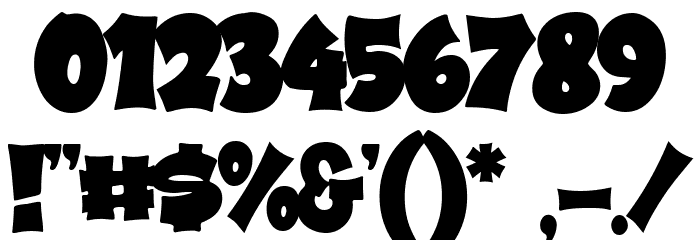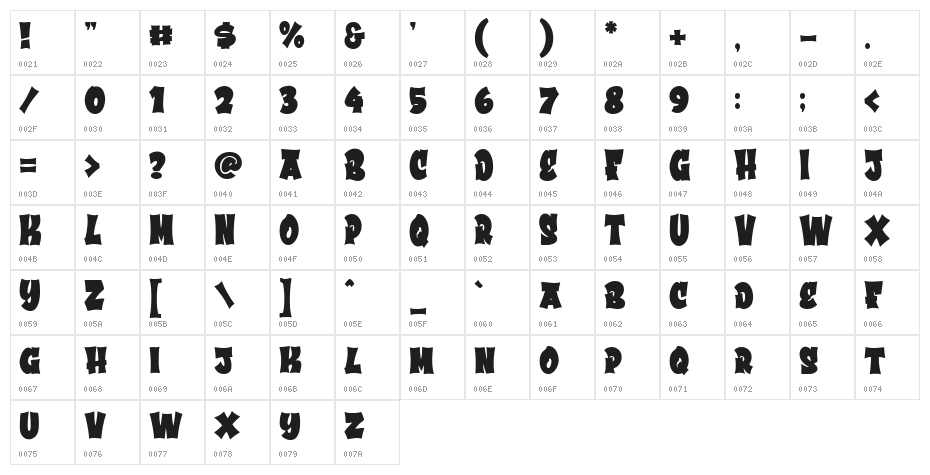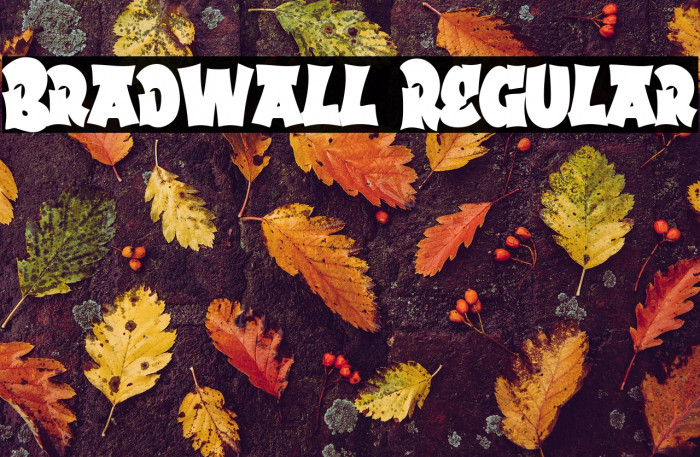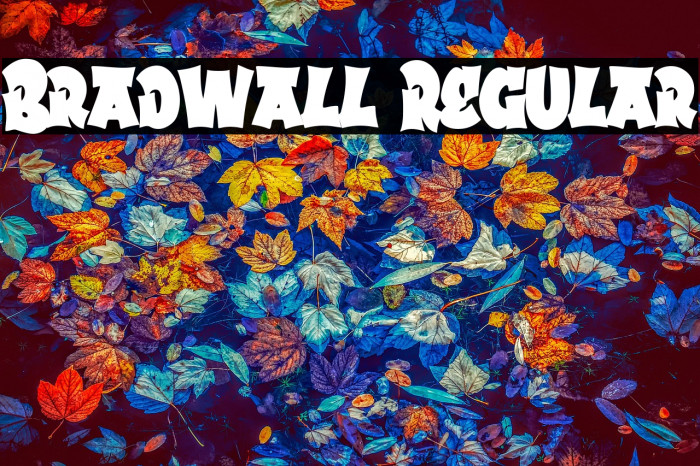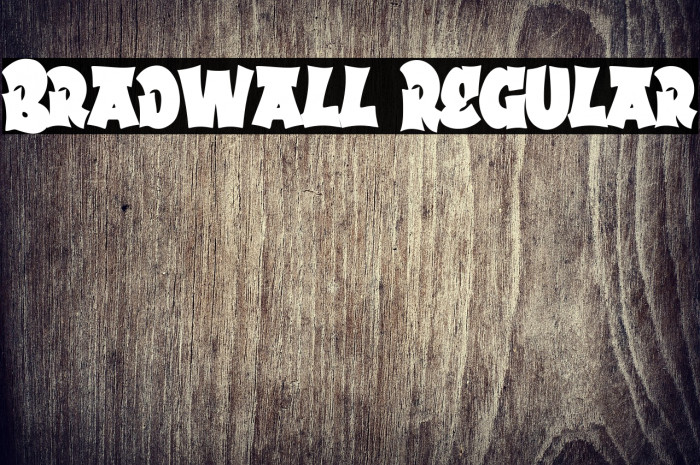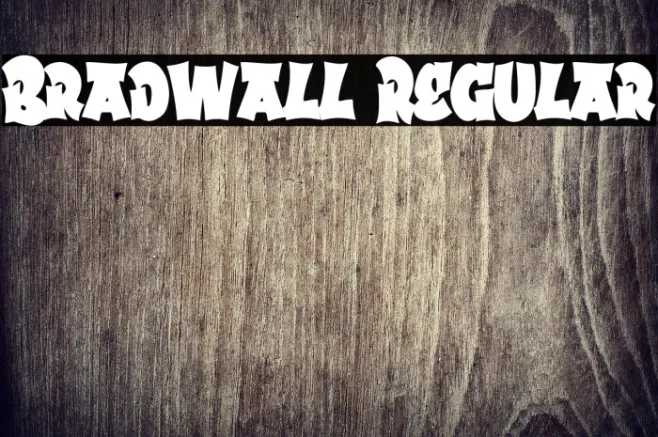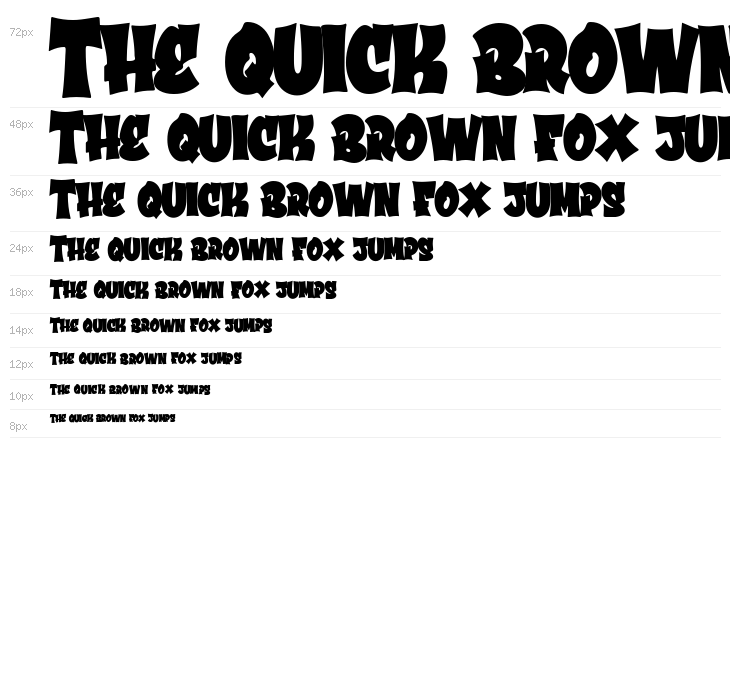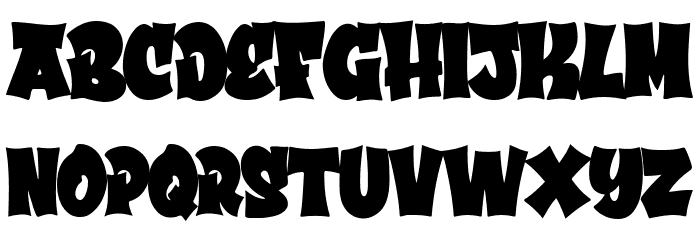
Bradwall Regular Font
Bradwall Regular Description
This font features a bold and dynamic style with exaggerated, playful curves and sharp angles. The characters are heavily stylized, giving them a cartoonish and energetic appearance. The uppercase and lowercase letters maintain a consistent weight, contributing to a cohesive look. The numbers and special characters are equally bold, ensuring uniformity across all glyphs. This font's unique design makes it stand out, with a strong presence that commands attention. Its thick strokes and high contrast make it ideal for impactful designs.
| Proposed Projects | Perfect for comic books, posters, children's books, and any project requiring a fun, eye-catching typeface. |